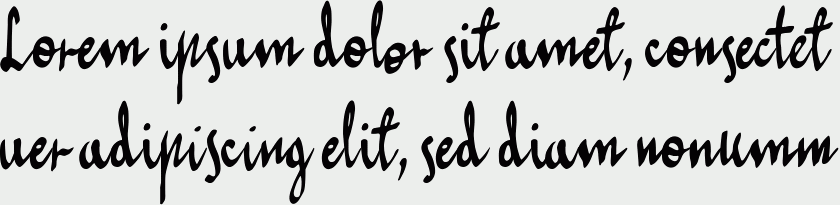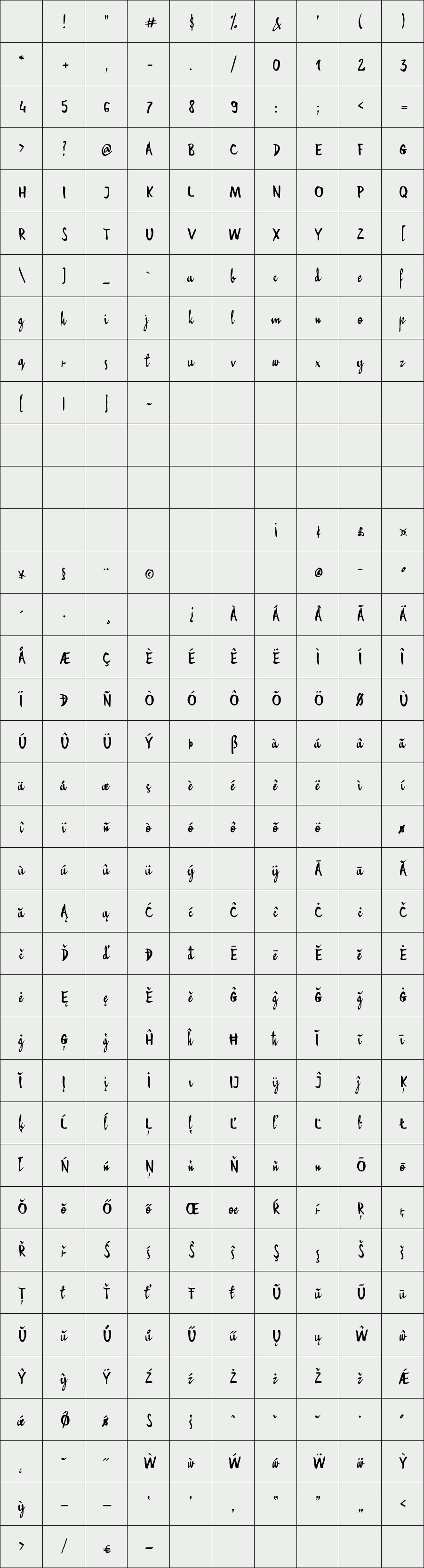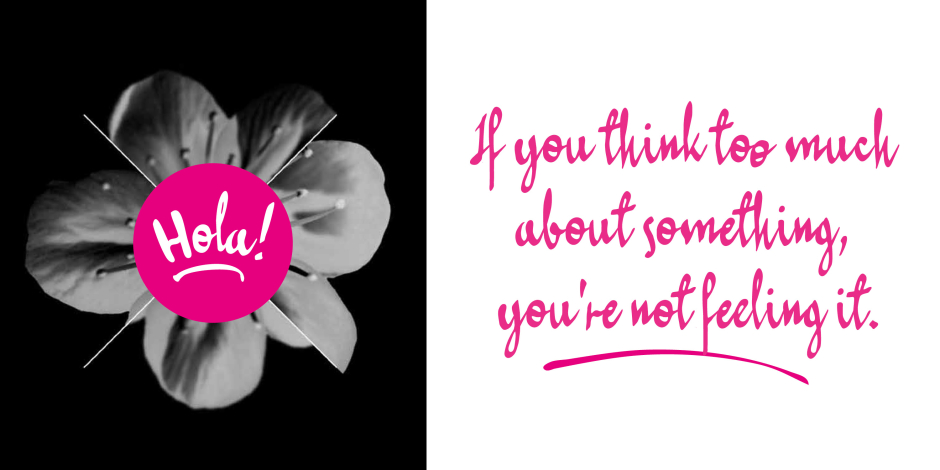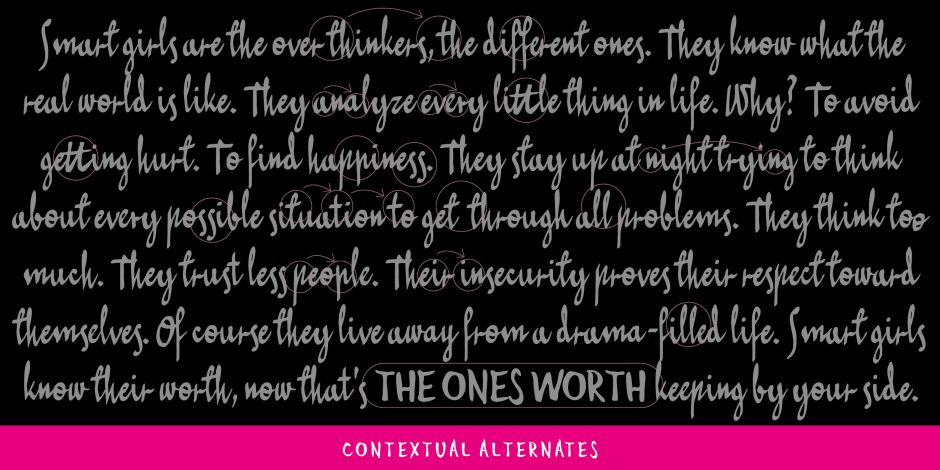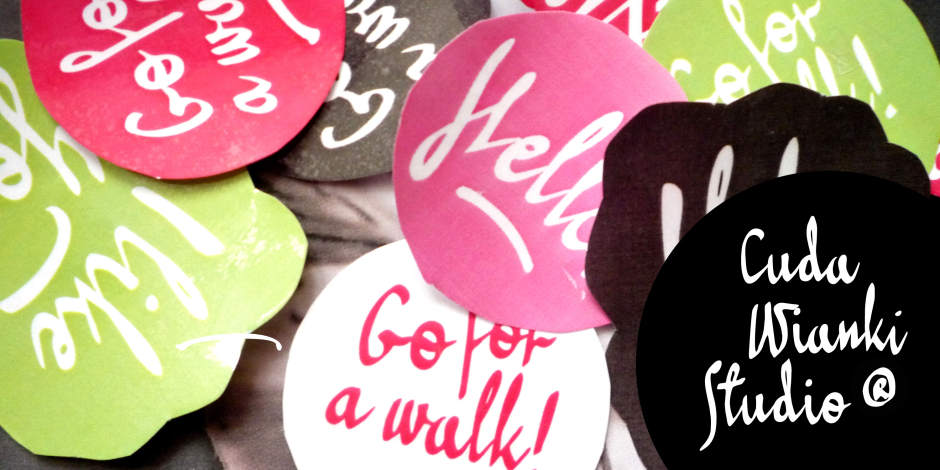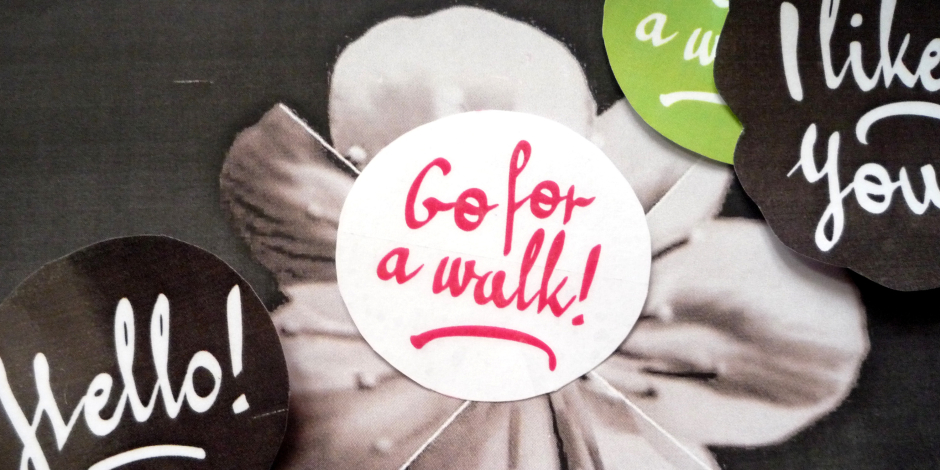
Hola
Hola! This is our new handwritten font. It’s casual, young and pretty, perfect for logotypes, magazines, writing notes and comments.
Thanks to many ligatures and alternate characters it is varied handwriting font.